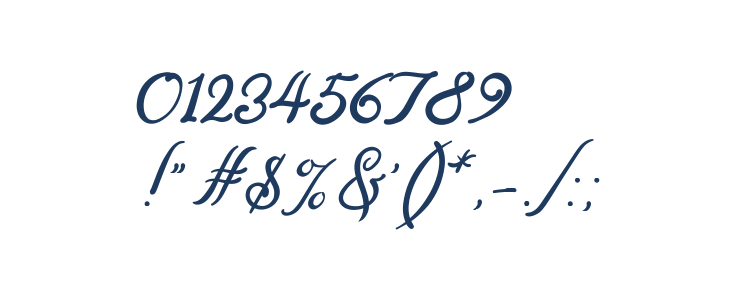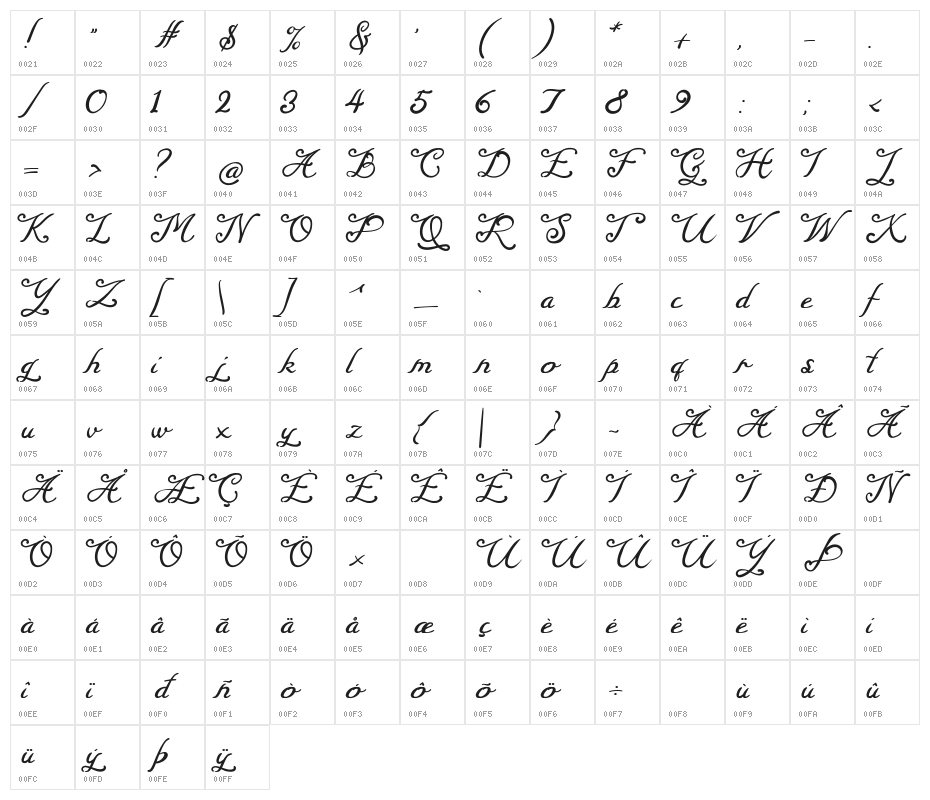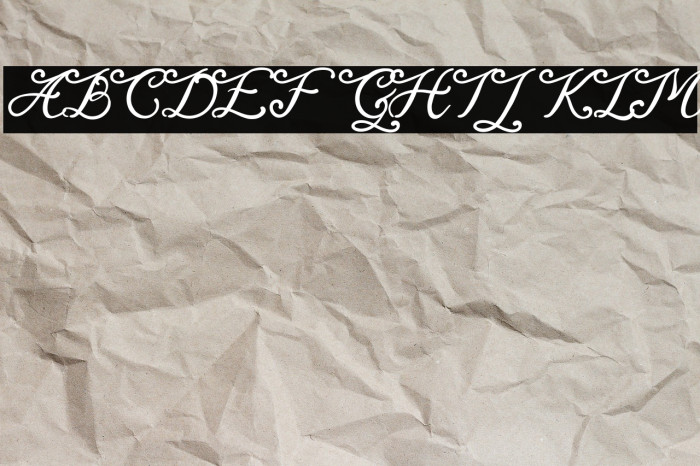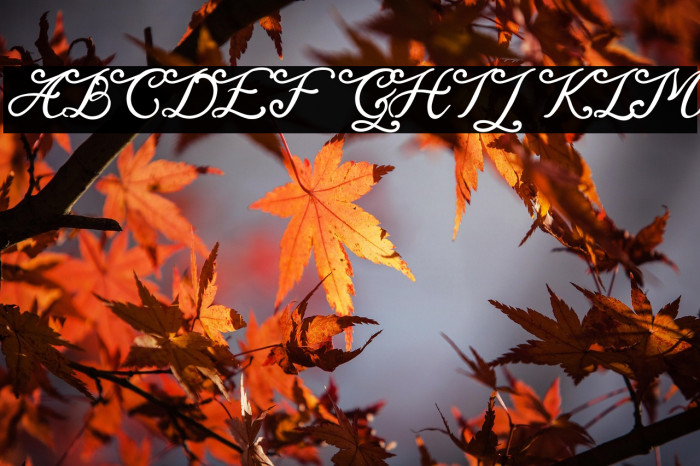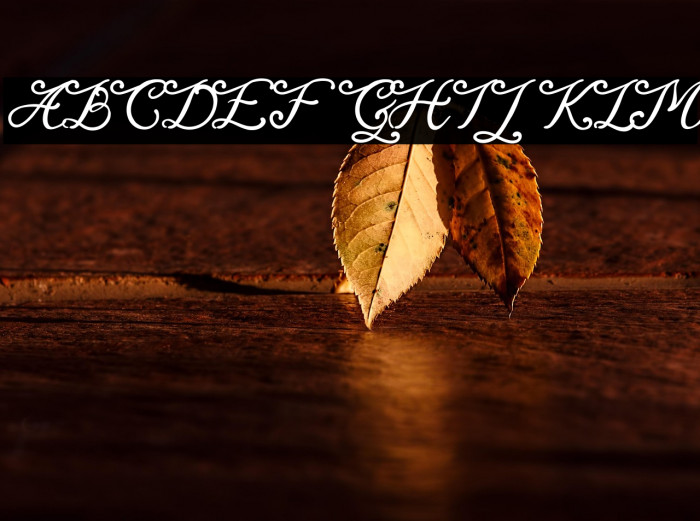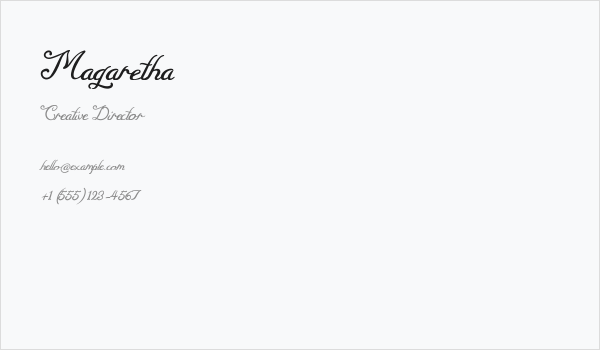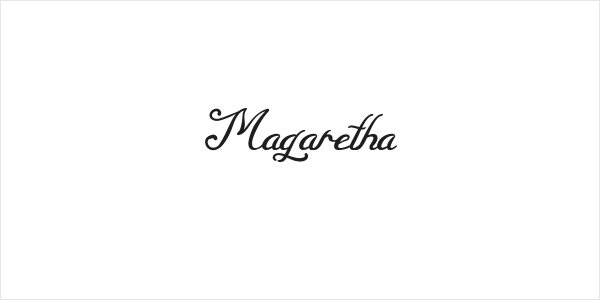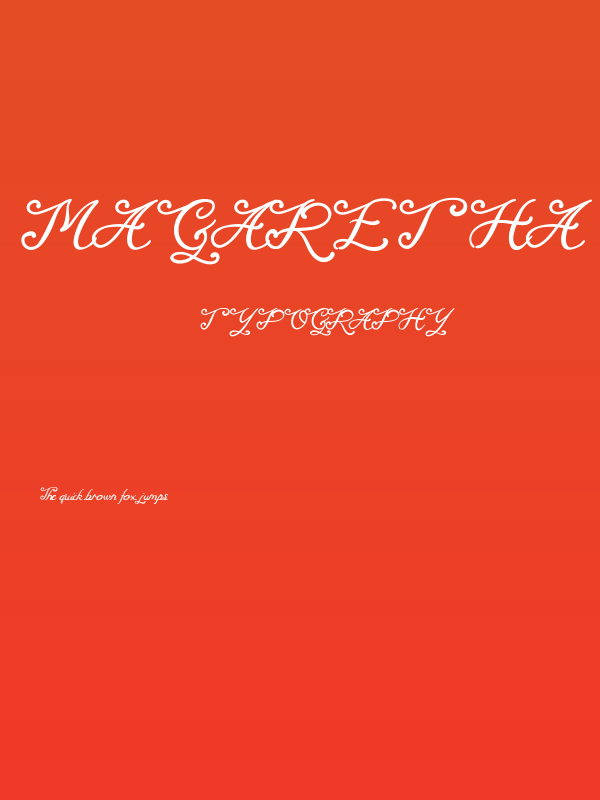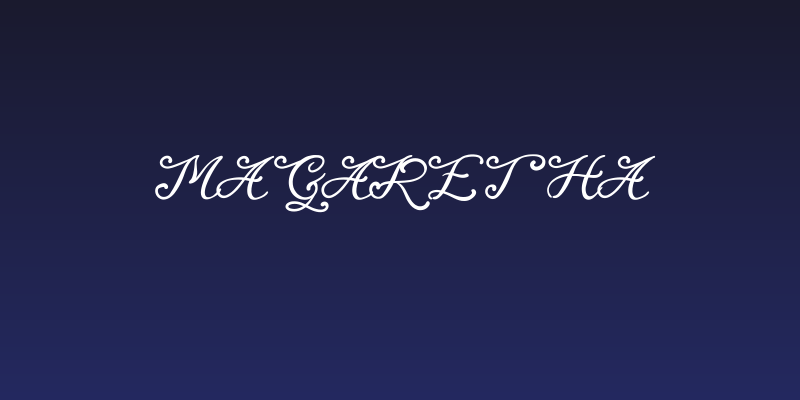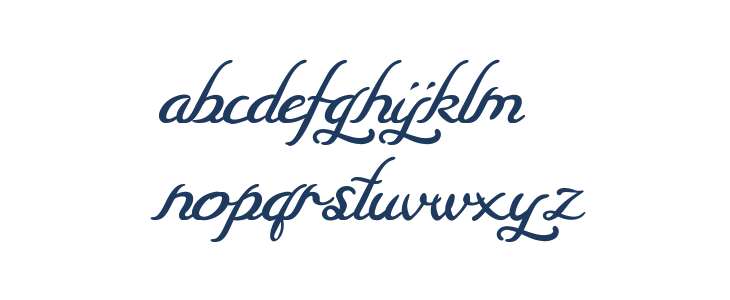
Magaretha Font
Magaretha Description
This font exudes elegance and sophistication with its flowing, cursive style. The uppercase letters are adorned with intricate swirls and flourishes, giving them a decorative and ornate appearance. The lowercase letters maintain a smooth, connected script that enhances readability while retaining a sense of grace. The numerals are consistent with the overall style, featuring subtle curves that complement the letters. Special characters are thoughtfully designed to match the aesthetic, making this font suitable for creative and artistic projects. The overall design is reminiscent of classic calligraphy, making it ideal for formal invitations, branding, and other projects that require a touch of elegance.
| Proposed Projects | Ideal for wedding invitations, luxury branding, greeting cards, and artistic projects. |